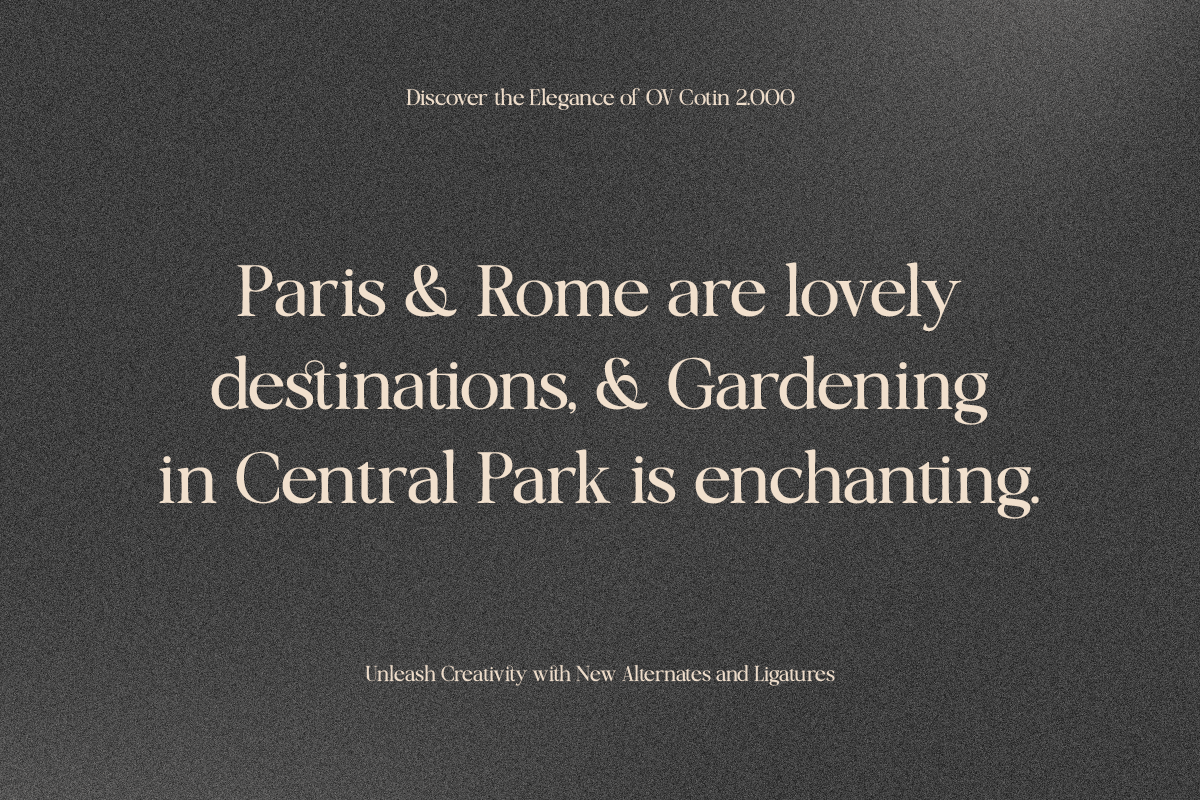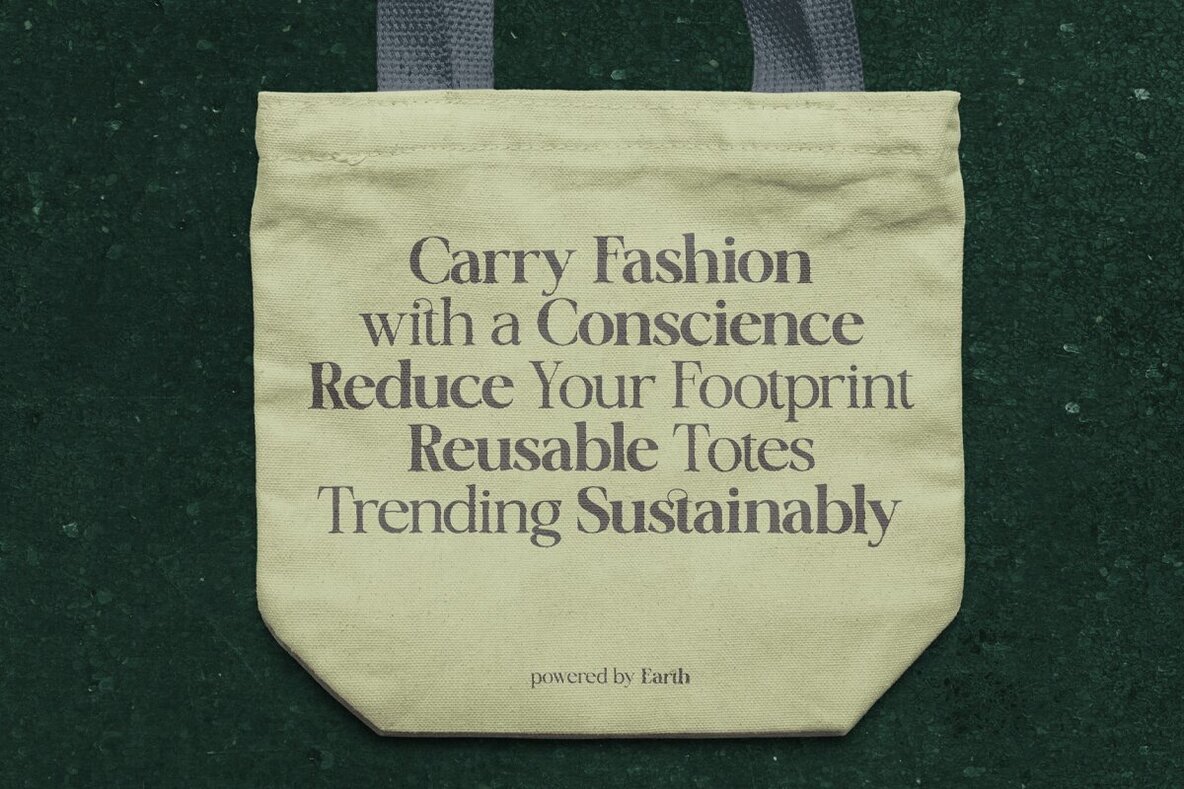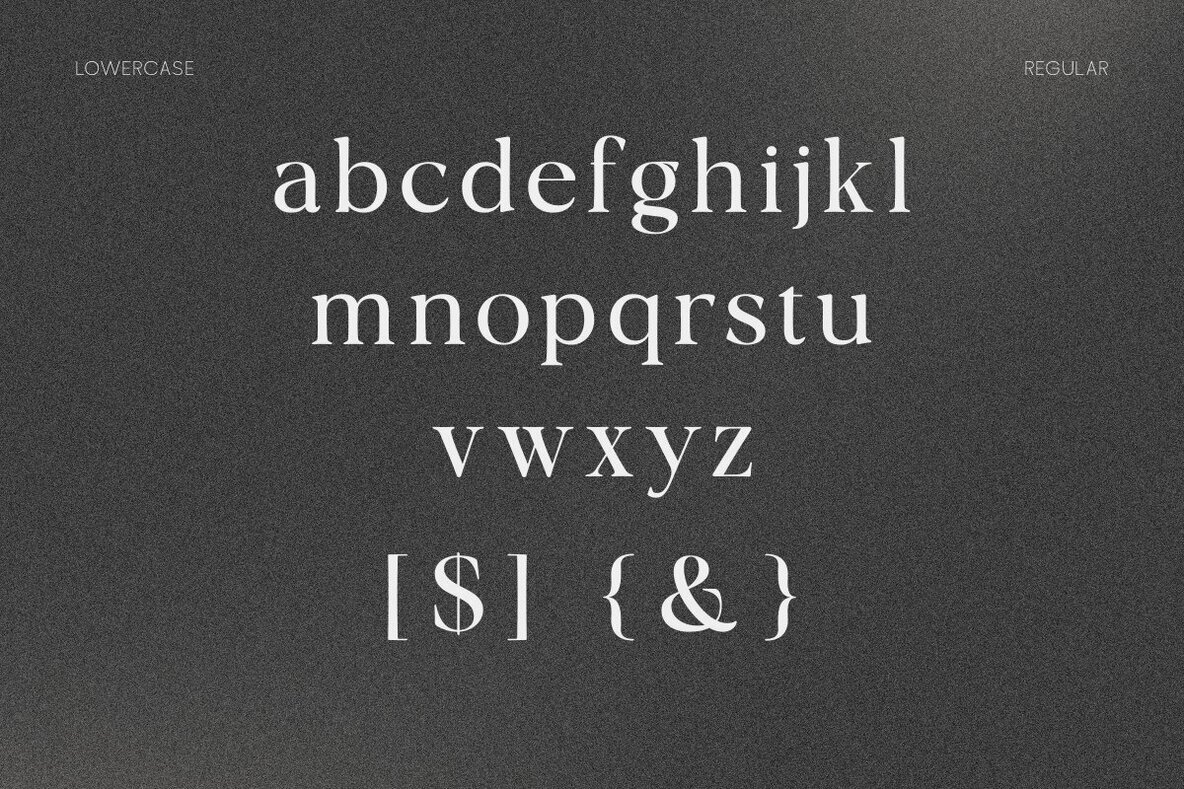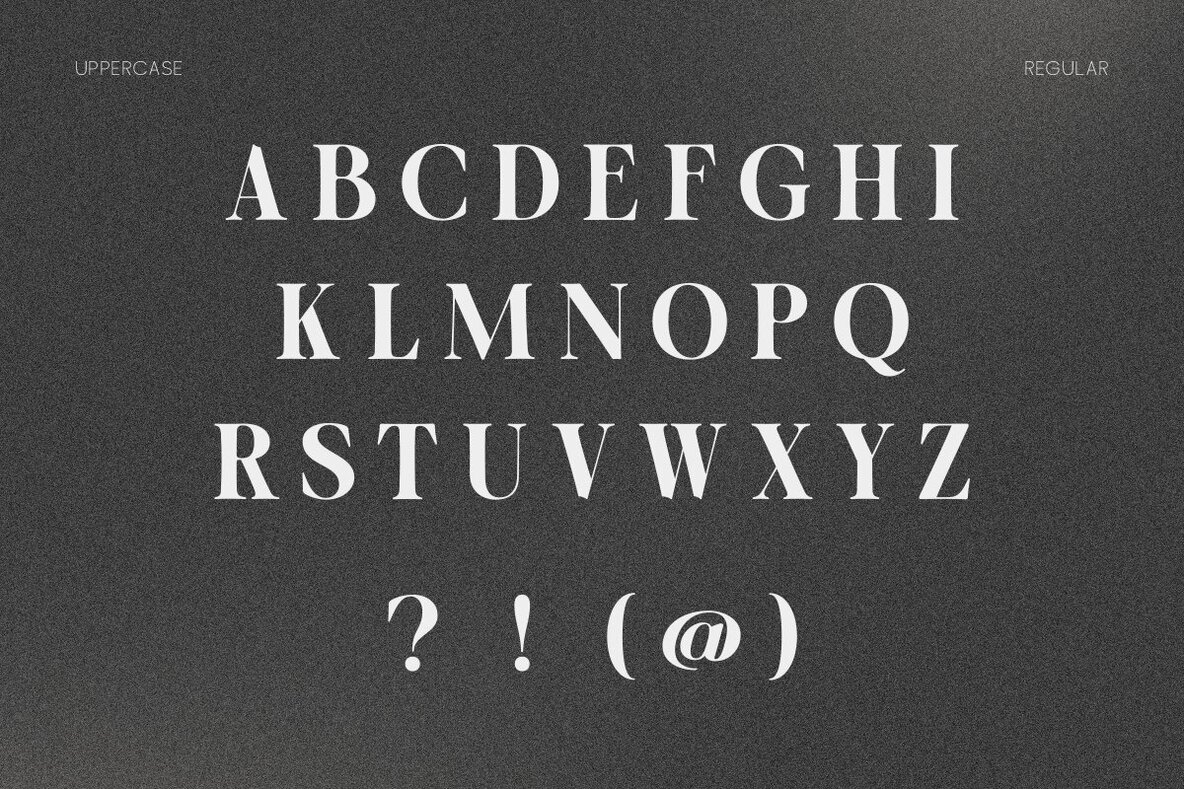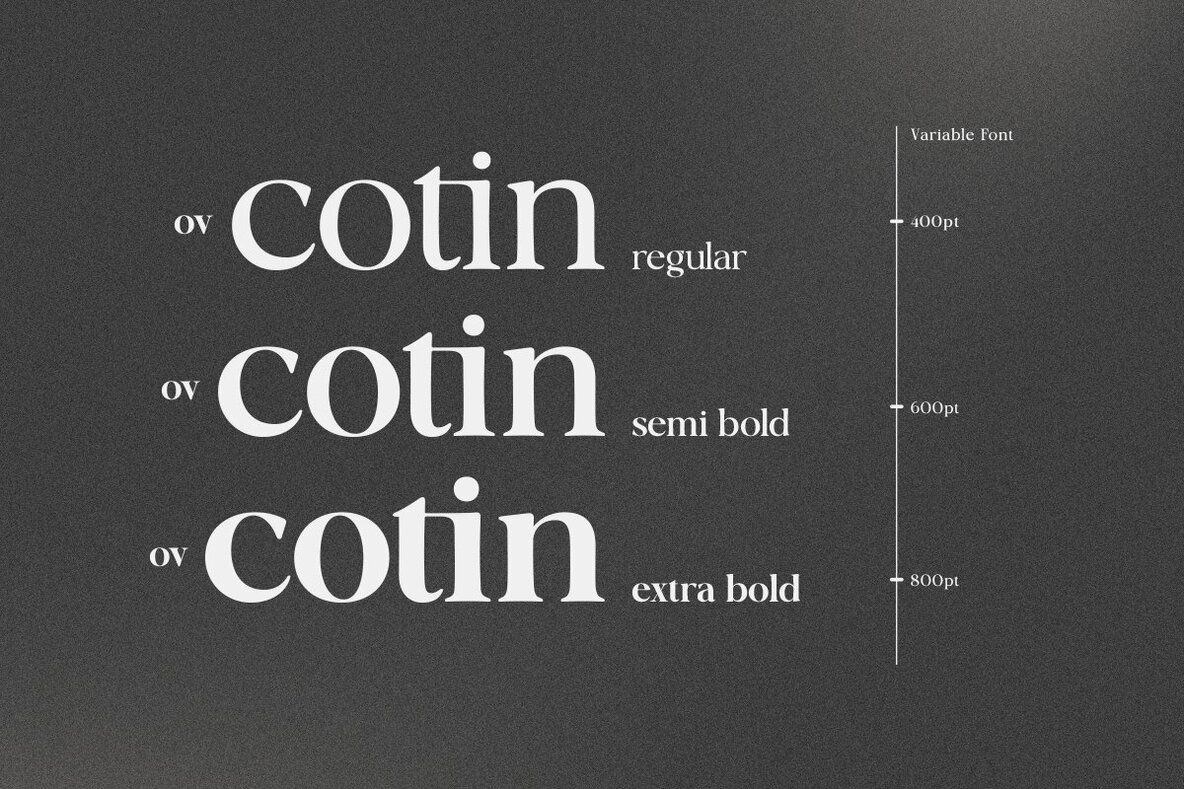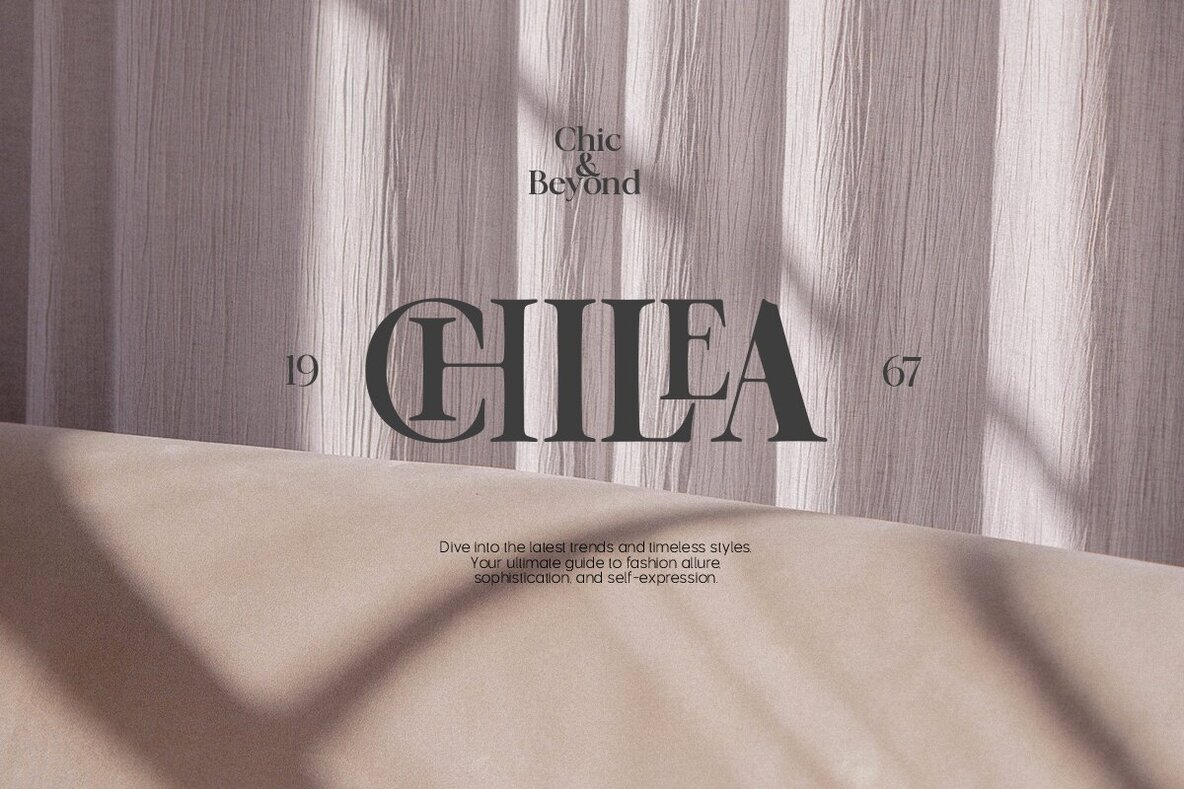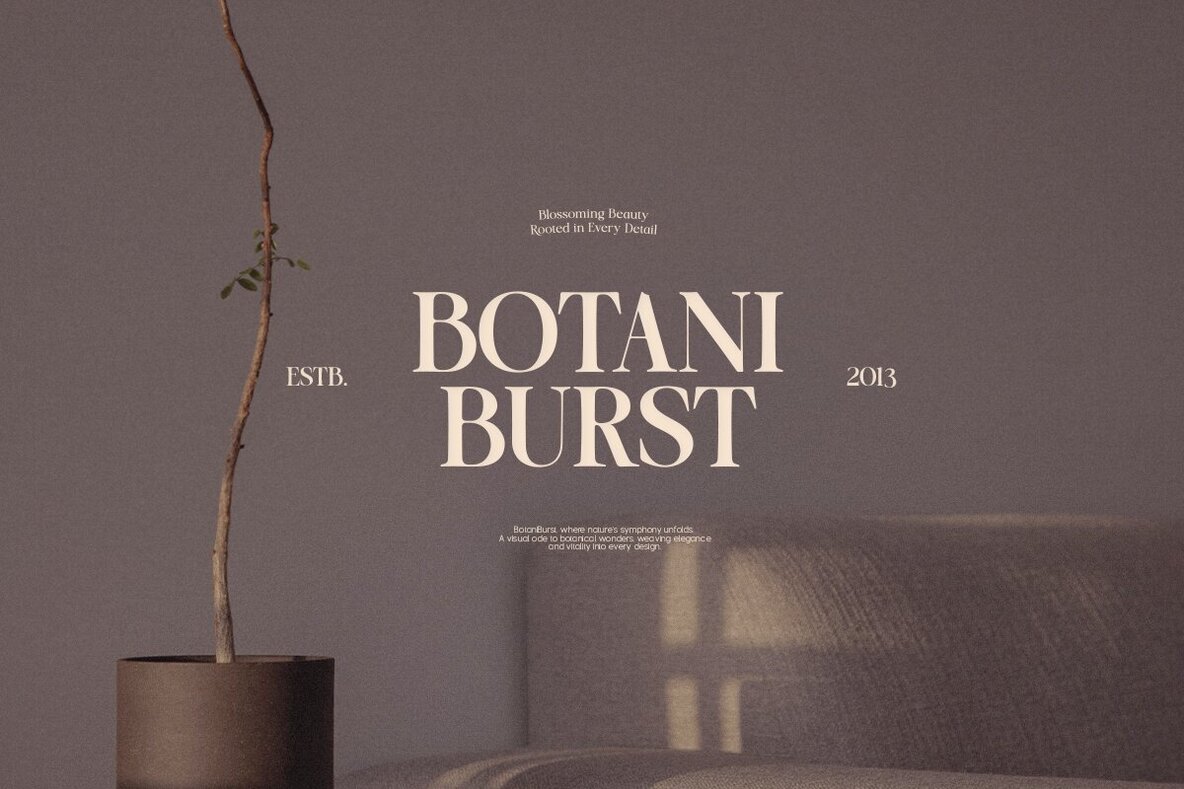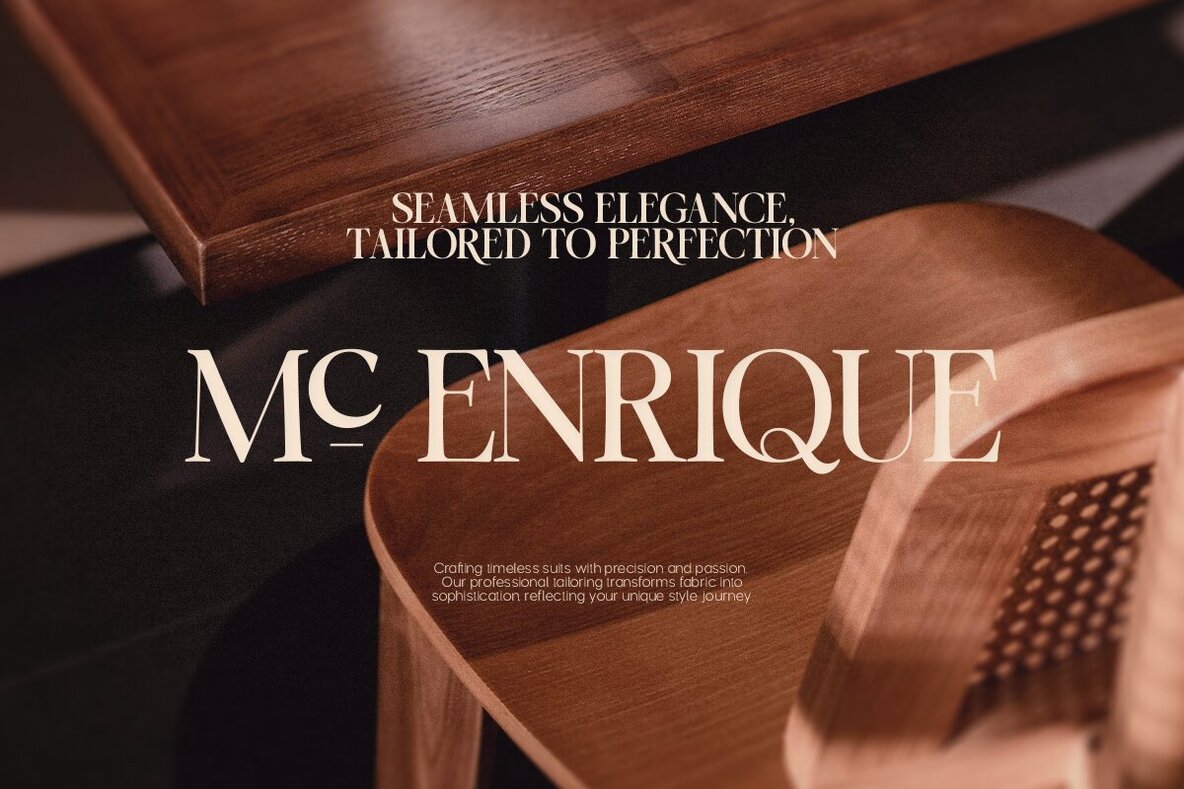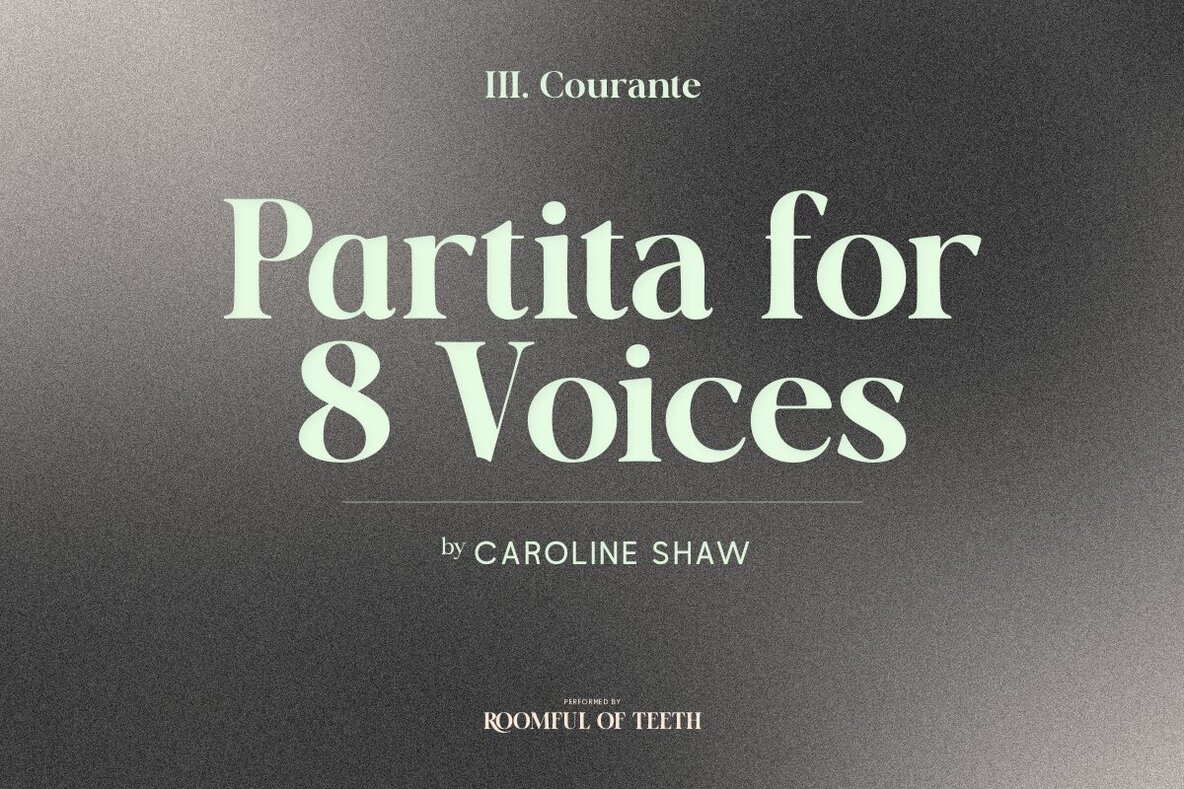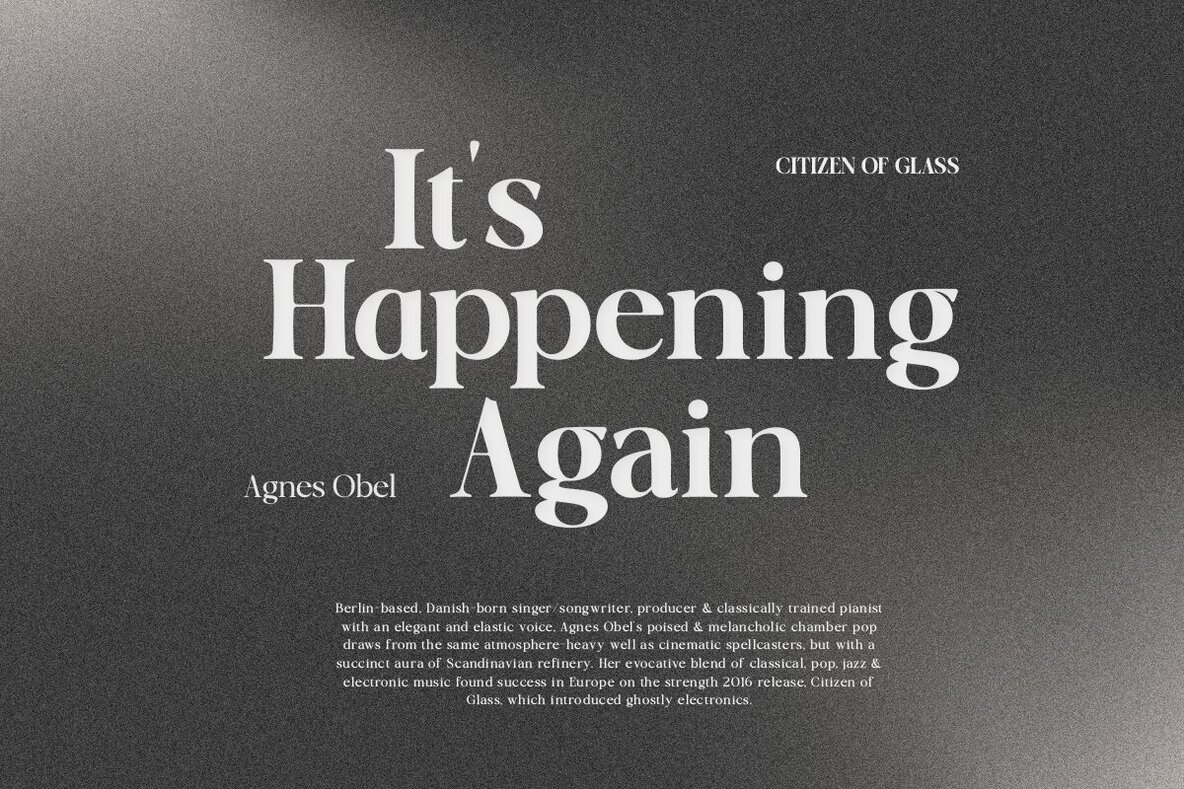
OV Cotin Font
OV Cotin is a timeless serif font that masterfully balances a classic foundation with modern elements. Available in Regular, Semi Bold, and Extra Bold, this font features meticulous craftsmanship, aiming to evoke familiarity while embracing contemporary trends. Ideal for sophisticated projects, its harmonious blend of tradition and innovation suits a wide range of creative applications.
In version 2.000, OV Cotin brings improved kerning for enhanced readability and visual appeal. It also features additional alternates and ligatures, offering greater creative flexibility. This updated version ensures that OV Cotin continues to be a versatile choice, providing a perfect blend of classic charm and modern style across all variable weights.